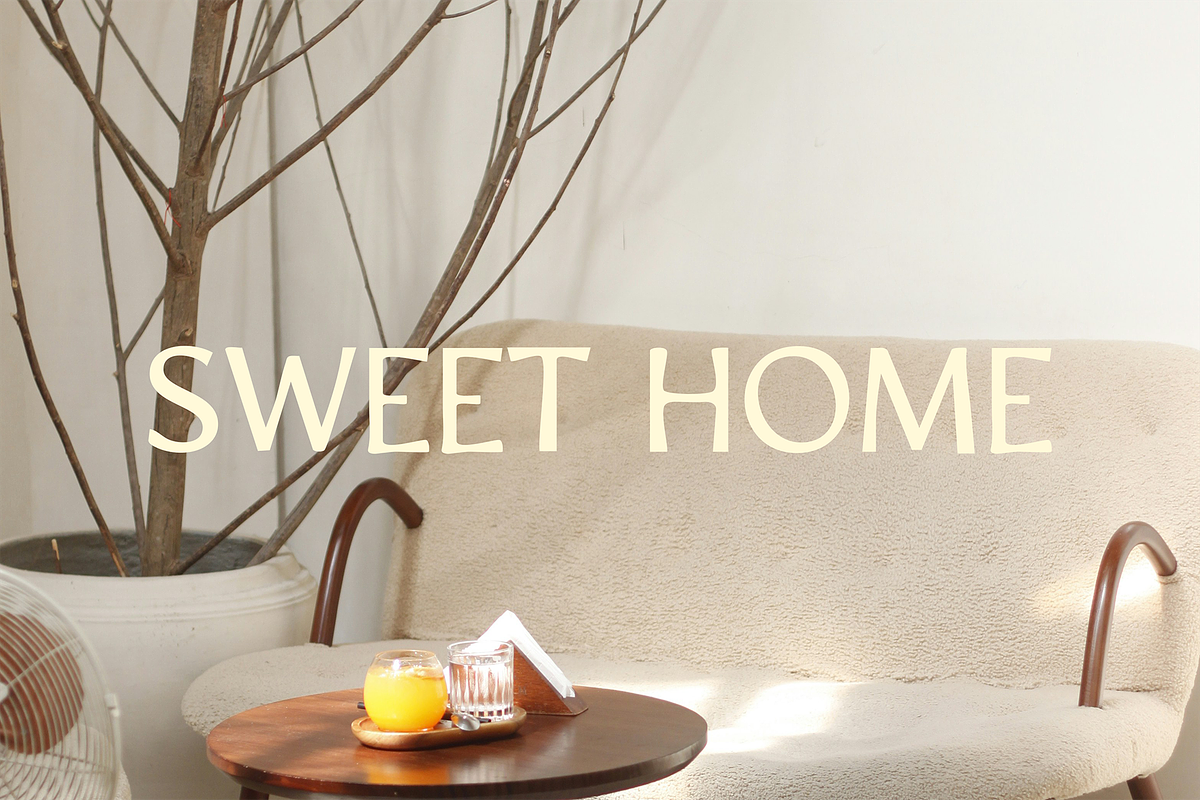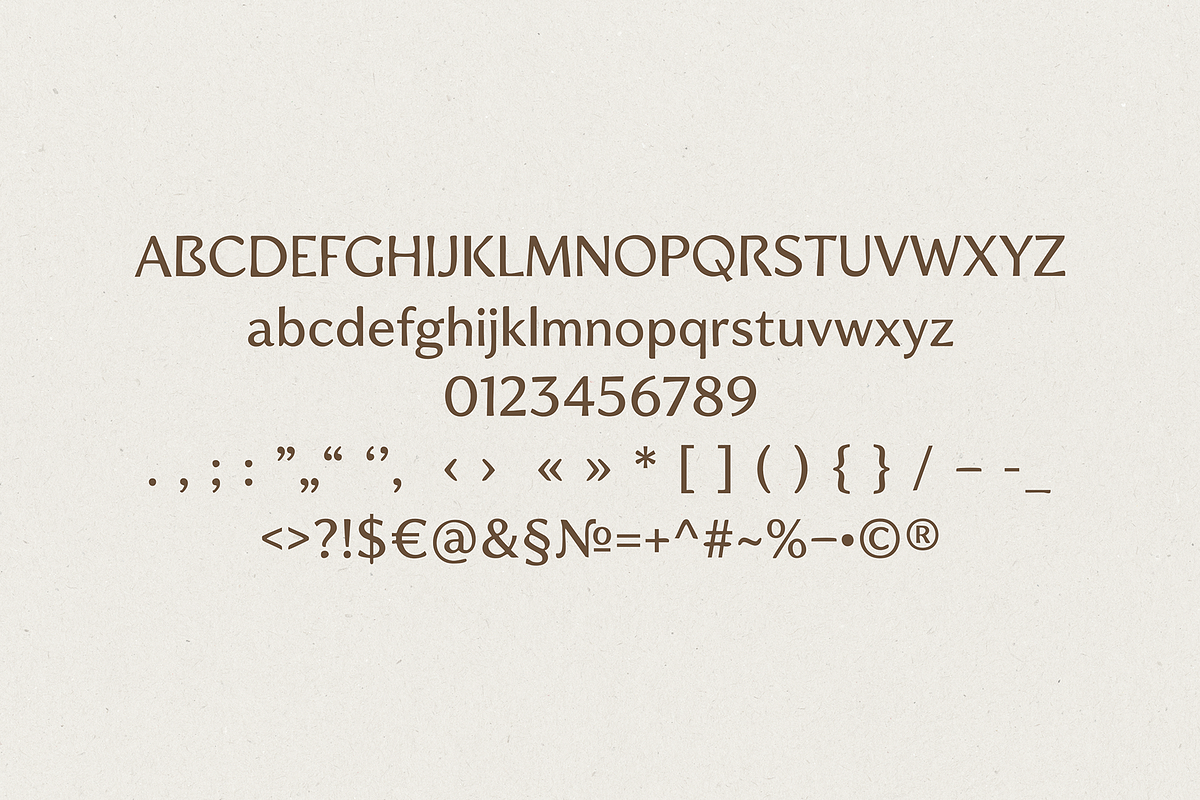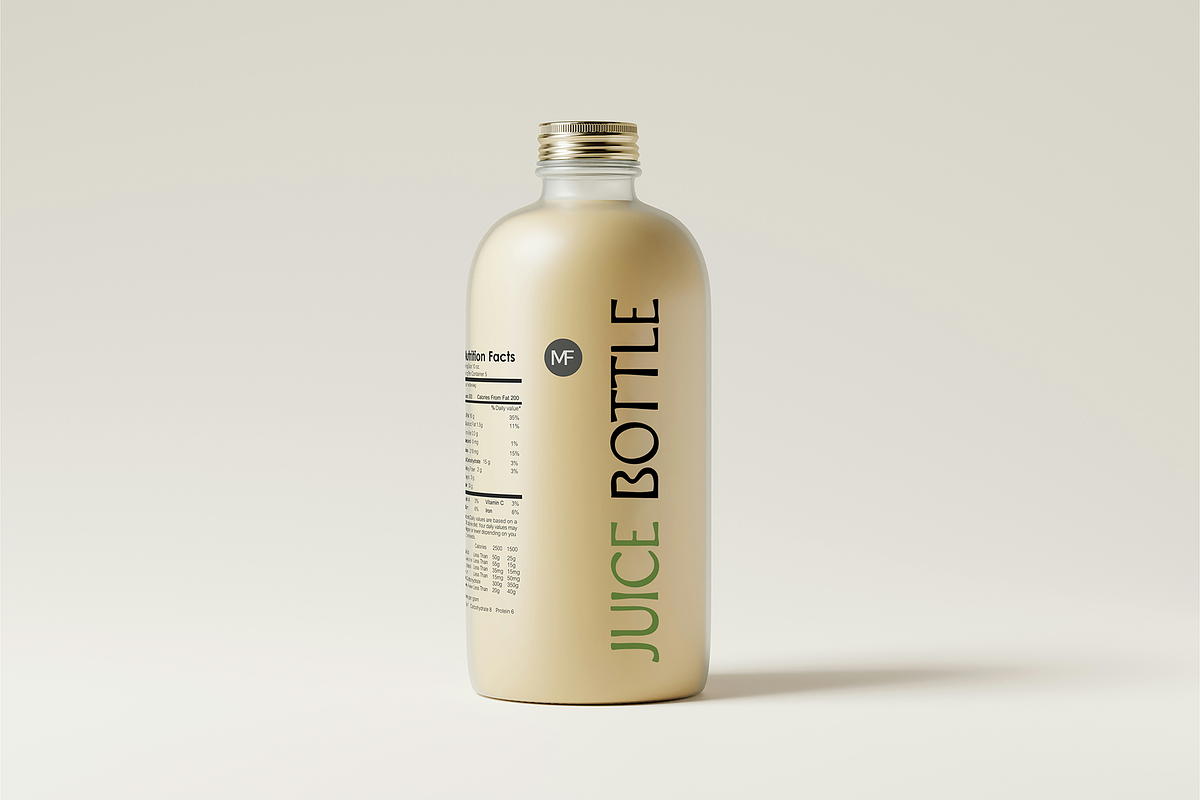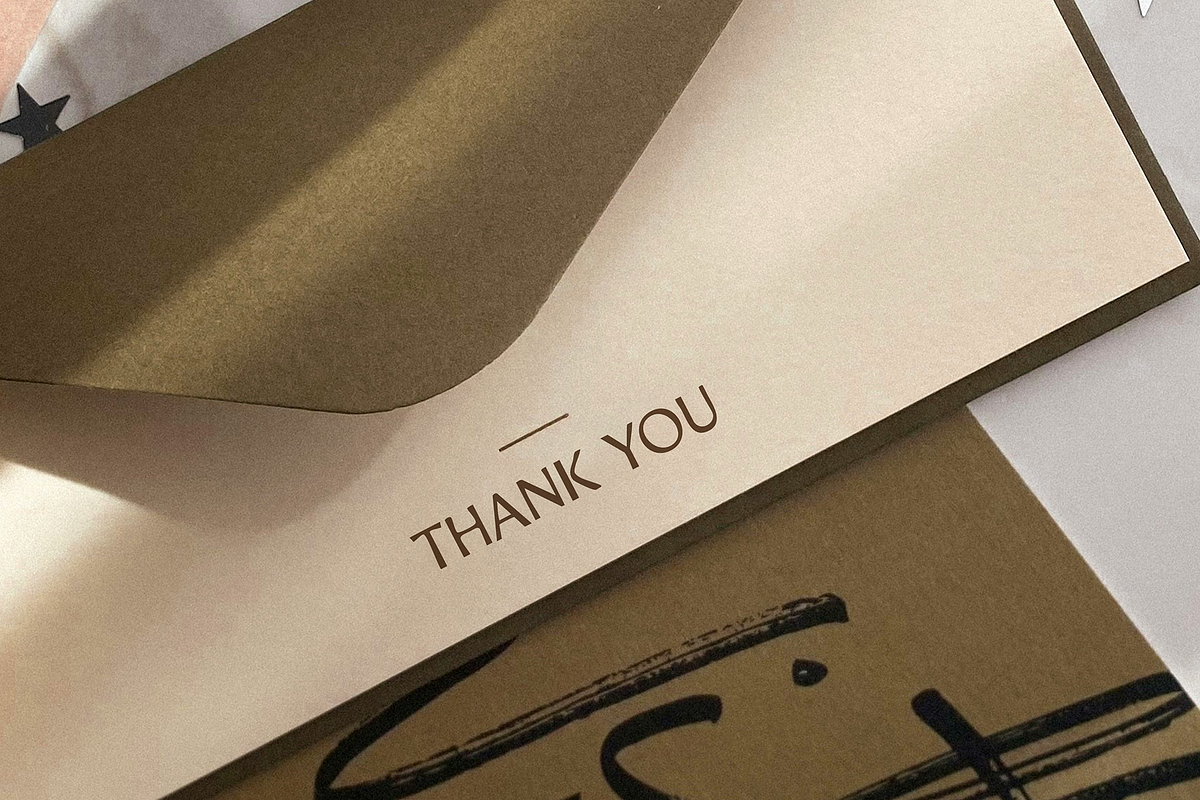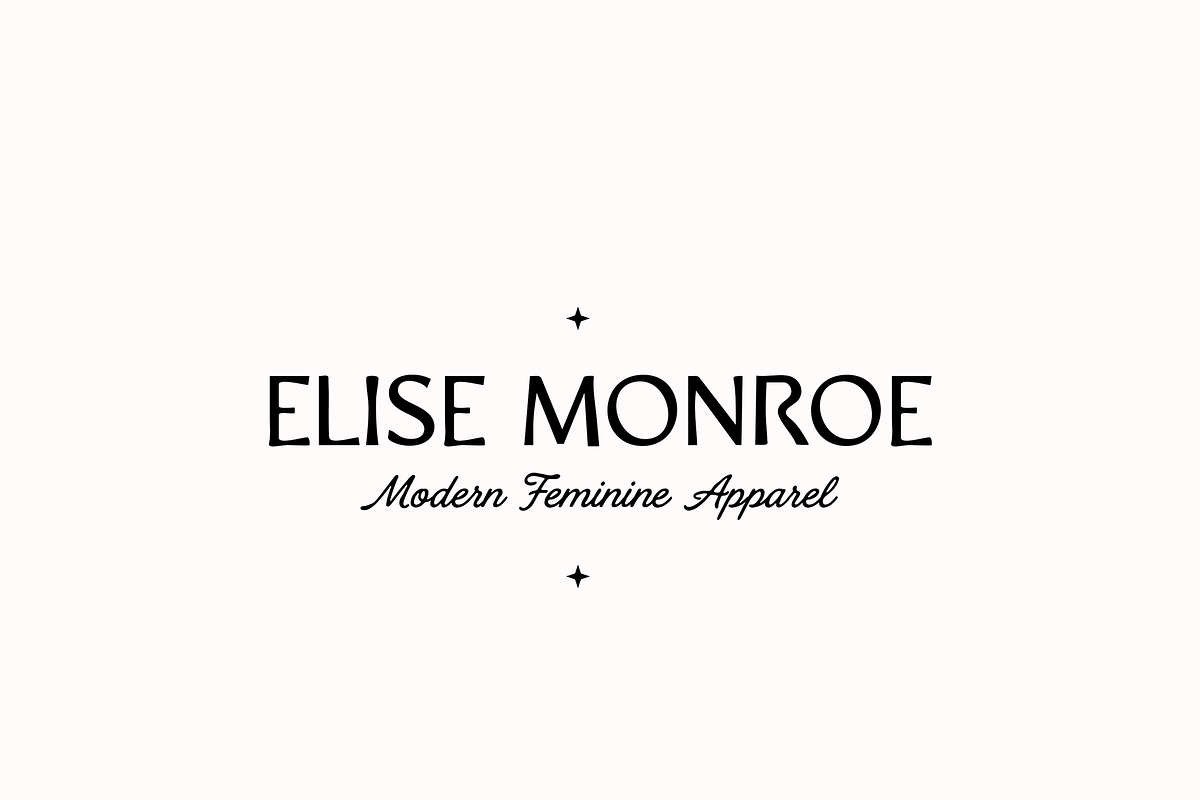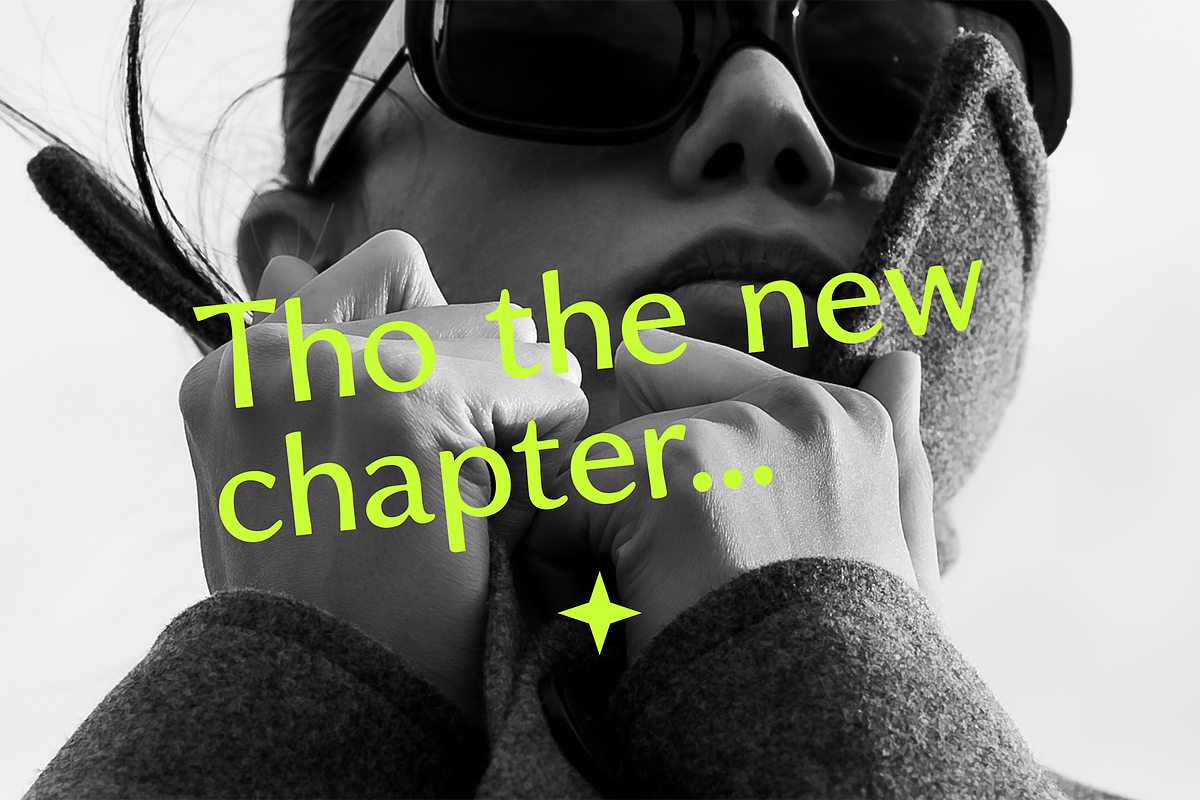
Soft Boheme Font
Soft Boheme is a decorative boho sans font with soft handcrafted letterforms, elegant curves, and a modern boutique-style look. This font is perfect for creating stylish logos, clothing brand designs, fashion labels, packaging, social media graphics, wedding designs, invitations, and feminine branding projects.
Its clean yet artistic style makes it a great choice for boutique logos, boho brands, lifestyle businesses, handmade shops, apparel labels, and modern creative projects.